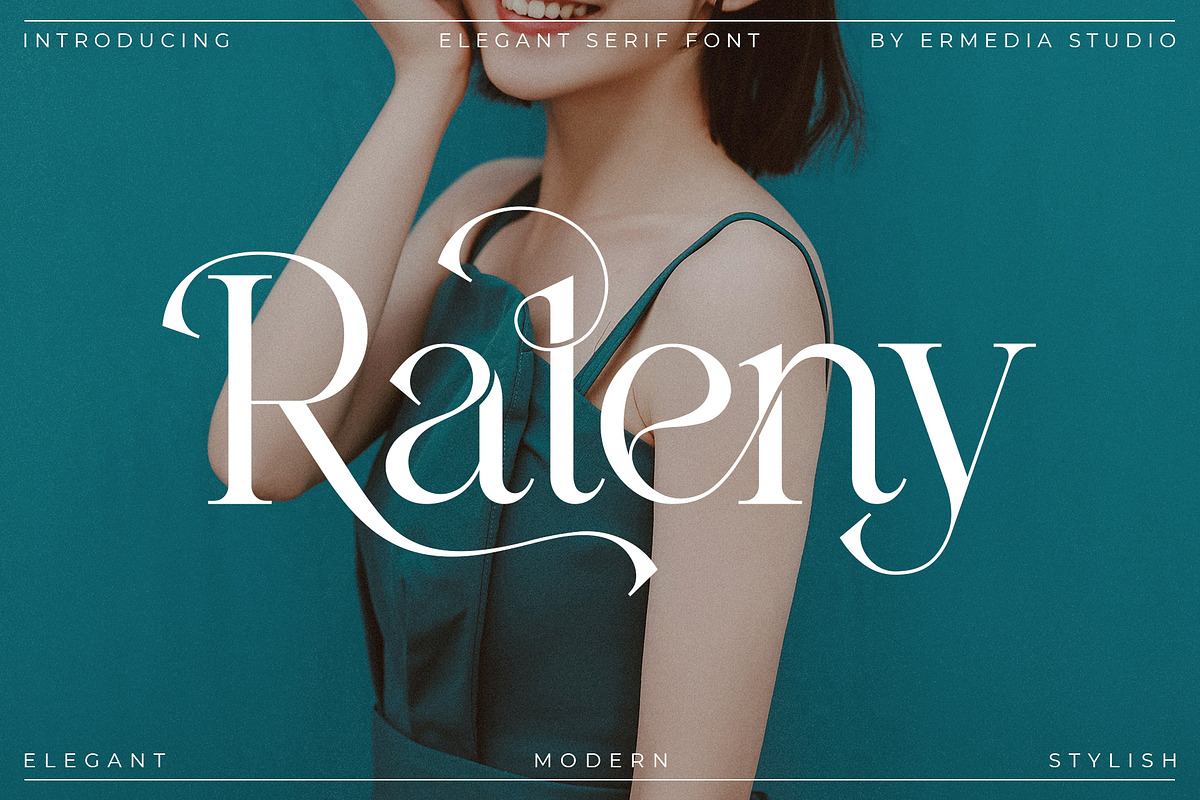
Raleny Serif Font Free Download is a modern and elegant serif typeface with sophisticated curves and high contrast that brings a stylish and professional touch to any design. Perfect for branding, editorial design, logos, invitations, and print materials, this font combines timeless serif elements with a contemporary feel.
The clean, structured design of Raleny ensures readability while adding a refined and luxurious touch to your typography. Whether you're working on high-end marketing materials, luxury branding, or chic personal projects, Raleny provides the versatility and elegance you need.
Enhance your designs with the stylish and refined aesthetic of Raleny!